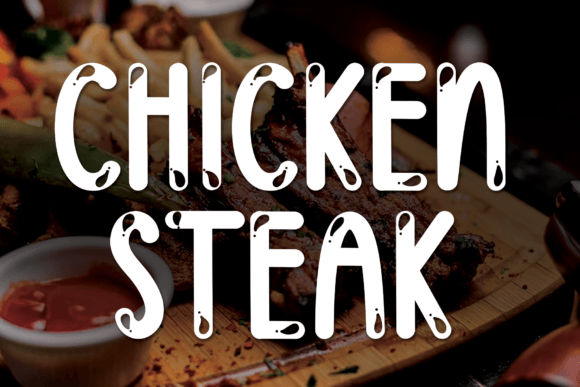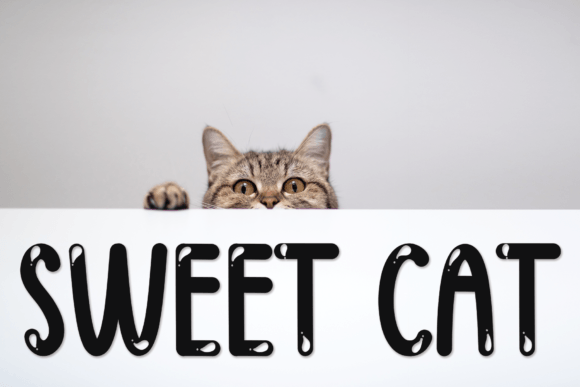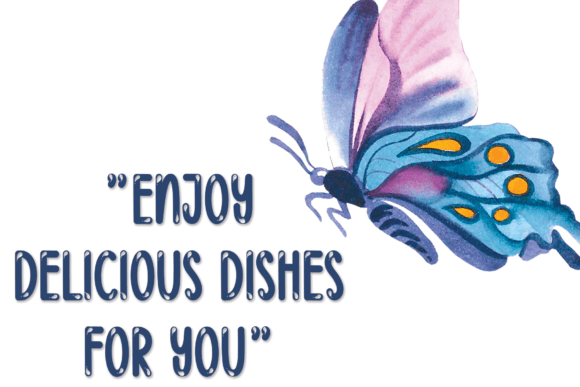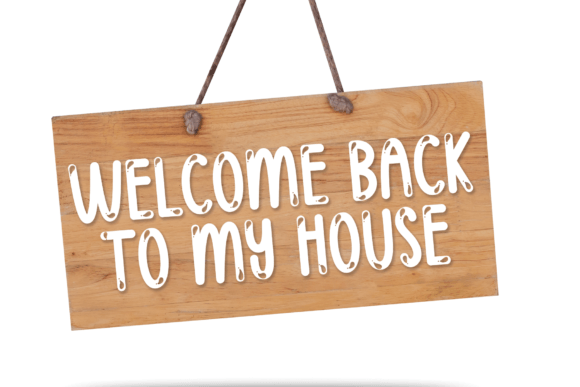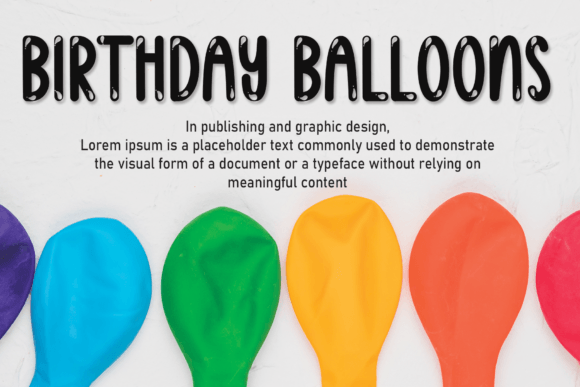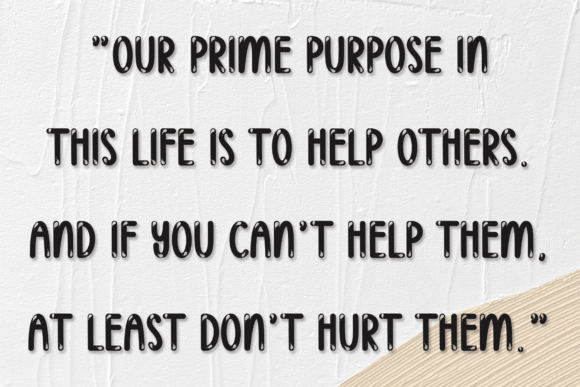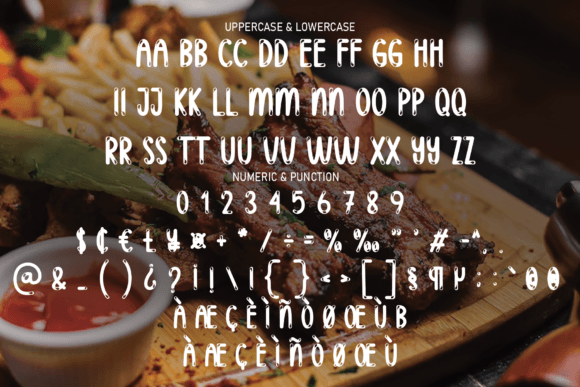
The Quirky Charm of Fonts: Unleashing Creativity
We’ve all been there – staring blankly at a blank page, struggling to find the perfect font to bring our design to life. It’s a moment of pure creative agony, until suddenly, a spark of inspiration strikes, and we discover that elusive font that makes everything click. For designers, finding the right font can be a game-changer, setting the tone for an entire project and elevating it from ordinary to extraordinary.
Enter the Chicken Steak Font, a unique and intriguing display font that’s equal parts quirky and captivating. This font is designed to add a touch of personality to any design, from advertising and marketing materials to editorial content and even fashion brands. With its versatility and charm, it’s no wonder designers are flocking to the Chicken Steak Font to add some much-needed flair to their projects.
Key Features of Chicken Steak Font
- Font Family: Chicken Steak Font is a unique, hand-drawn font that offers a variety of styles and weights.
- Character Count: The font contains over 300 characters, including uppercase and lowercase letters, numbers, and special characters.
- Unique Characteristics: Features a distinctive, hand-drawn style with varying line widths, making it perfect for creating eye-catching, rustic, or vintage designs.
Designer Review: Chicken Steak Font
Overall, I have mixed feelings about the Chicken Steak Font. While it has some interesting aspects, it also has its limitations.
- The font has a unique, quirky charm that could work well for specific branding or design projects.
- The bold weight of the font is quite striking and could be used effectively for headlines or titles.
- The font’s playfulness could appeal to a younger audience or those looking for a more casual tone.
- The font’s legibility can be a concern, especially in smaller sizes or at a distance. The letterforms can be quite busy and may be difficult to read.
- The font lacks a clear, defined style or consistency, which could make it challenging to use across different projects or designs.
- The font’s uniqueness can also be a drawback, as it may not appeal to a wide audience or be suitable for more formal or professional designs.
In conclusion, while the Chicken Steak Font has some interesting aspects, its limitations and potential inconsistencies make it a font that should be used judiciously and with careful consideration of its strengths and weaknesses.
The Chicken Steak Font is ideal for creating eye-catching headings, titles, and captions in designs related to food, cooking, or entertainment. You can also use it to add a touch of playfulness and whimsy to your designs.
To get the most out of the Chicken Steak Font, use it sparingly and strategically to create visual interest. Combine it with other fonts and design elements to create a unique and engaging visual identity. Experiment with different font sizes, colors, and styles to find the perfect balance for your design.